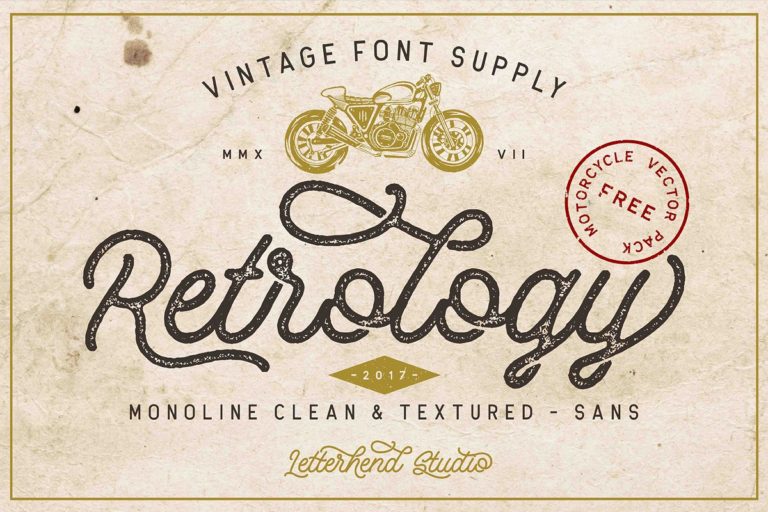
Retrology Script Font
Hello friend. Vintage font supply, so classic, so retro…. Introducing Retrology Font. Retrology – this monoline typeface will bring you to the good ol’ days with its classic touch! It is perfect for invitations, signatures, blogs, social media, business cards, product brands.